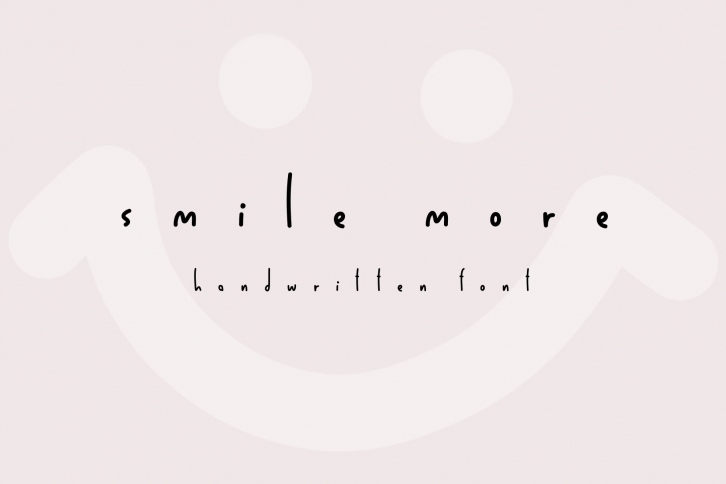
Smile more is a great font that was designed by Jyllyco. Imagine the amount of combinations you can create using this font! The archive is 8.59 MB and it was released on December 30, 2020. Smile more looks beautiful on wedding invitations, greeting cards, logos, posters, labels, t-shirt designs, logos, business cards and is perfect for use in ink or watercolor works, fashion, magazines, packaging and food menus, children's books and more!